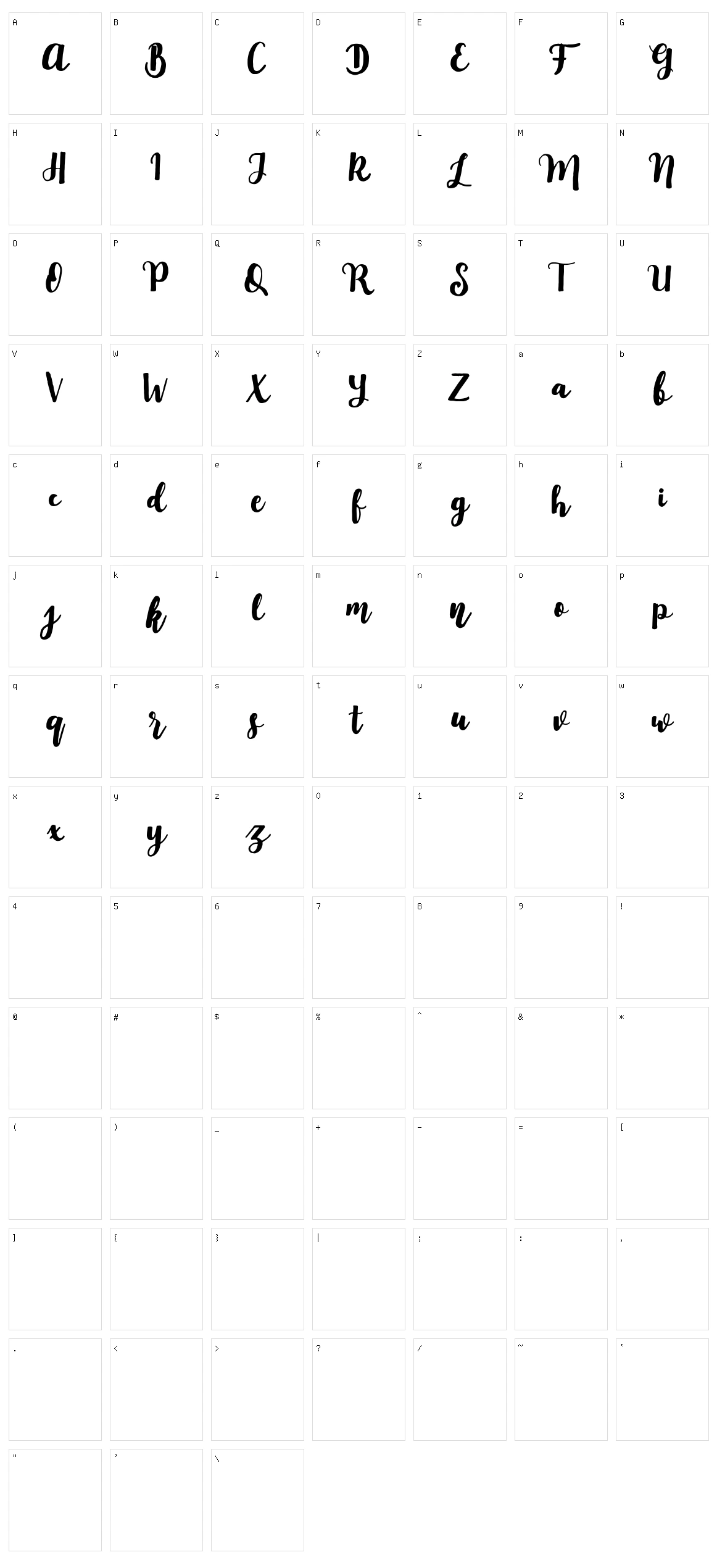
The free font Mylandia is carefully designed by Typefar, showcasing a thoughtful balance of creativity and usability and falls under the Script font style. When you download the ZIP file, it contains only 19.32 KB of font files, making it lightweight and quick to download. Please review the license details below to understand permitted usage and distribution rights. If license information is not available, we recommend using this font for personal projects only or contacting the author directly for commercial usage permissions.